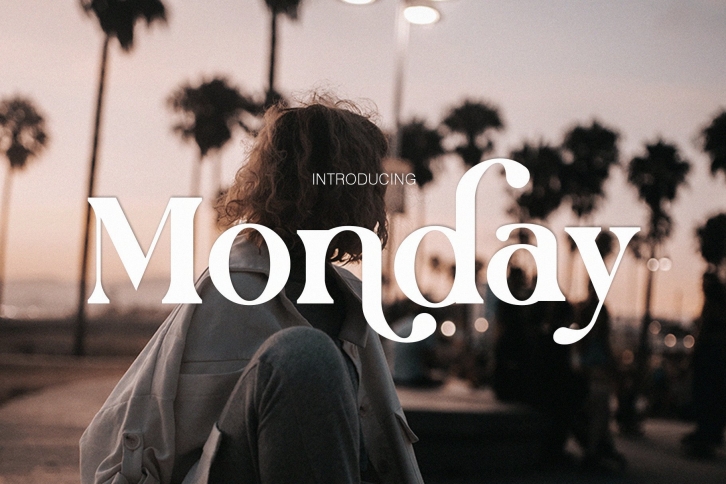
Monday is a modern and fashionable serif font. Trendy and stylish, this font will elevate each of your creations. Monday is PUA encoded which means you can access all of the glyphs and swashes with ease!